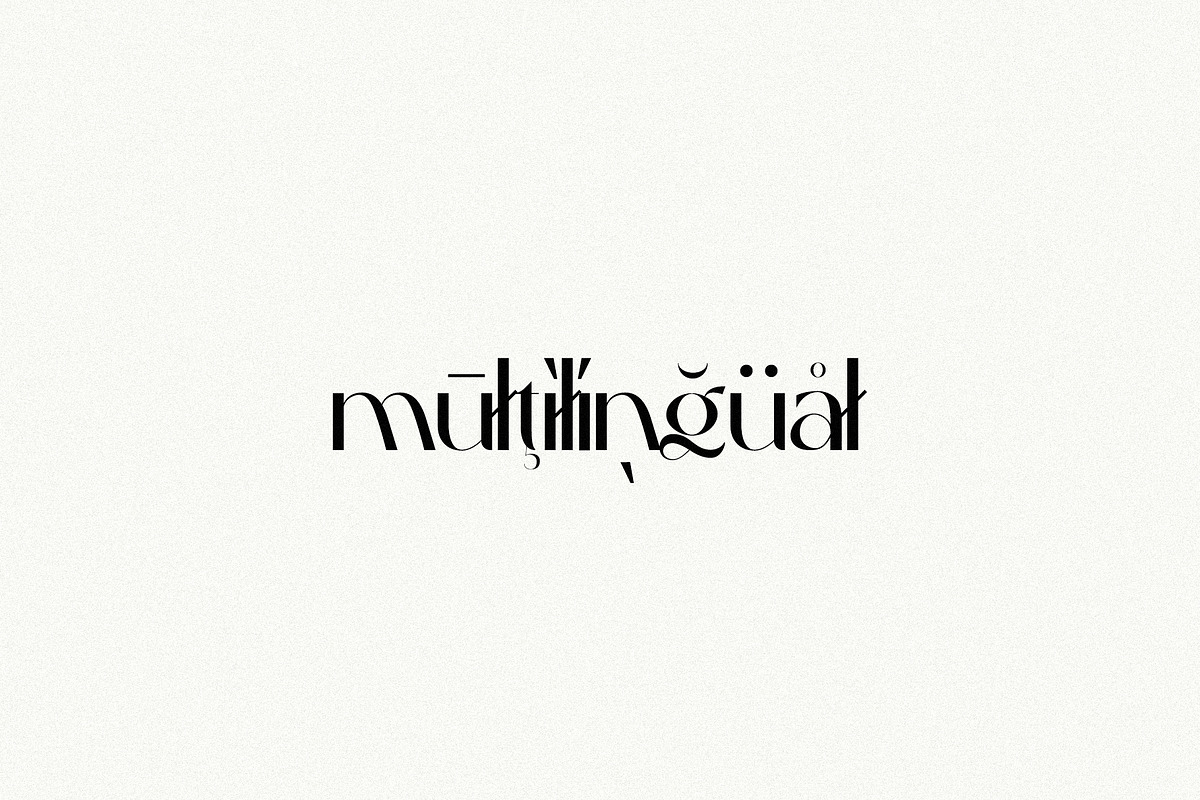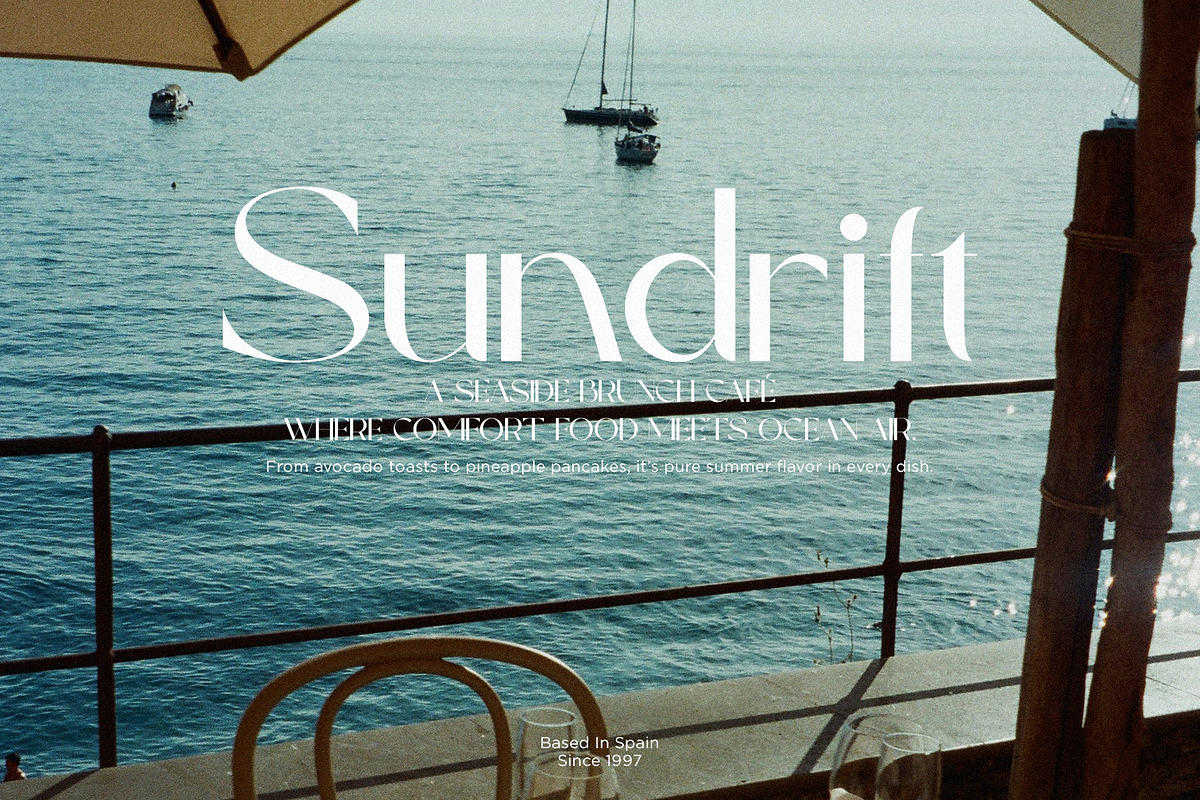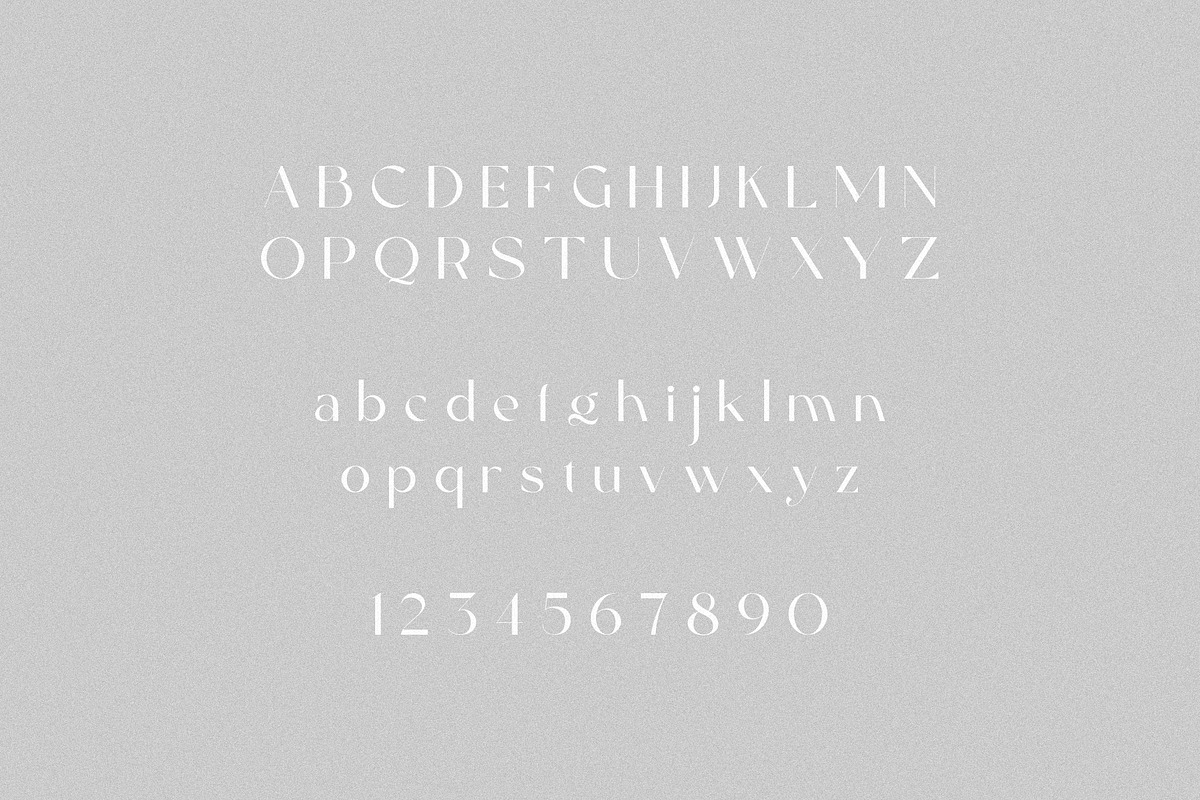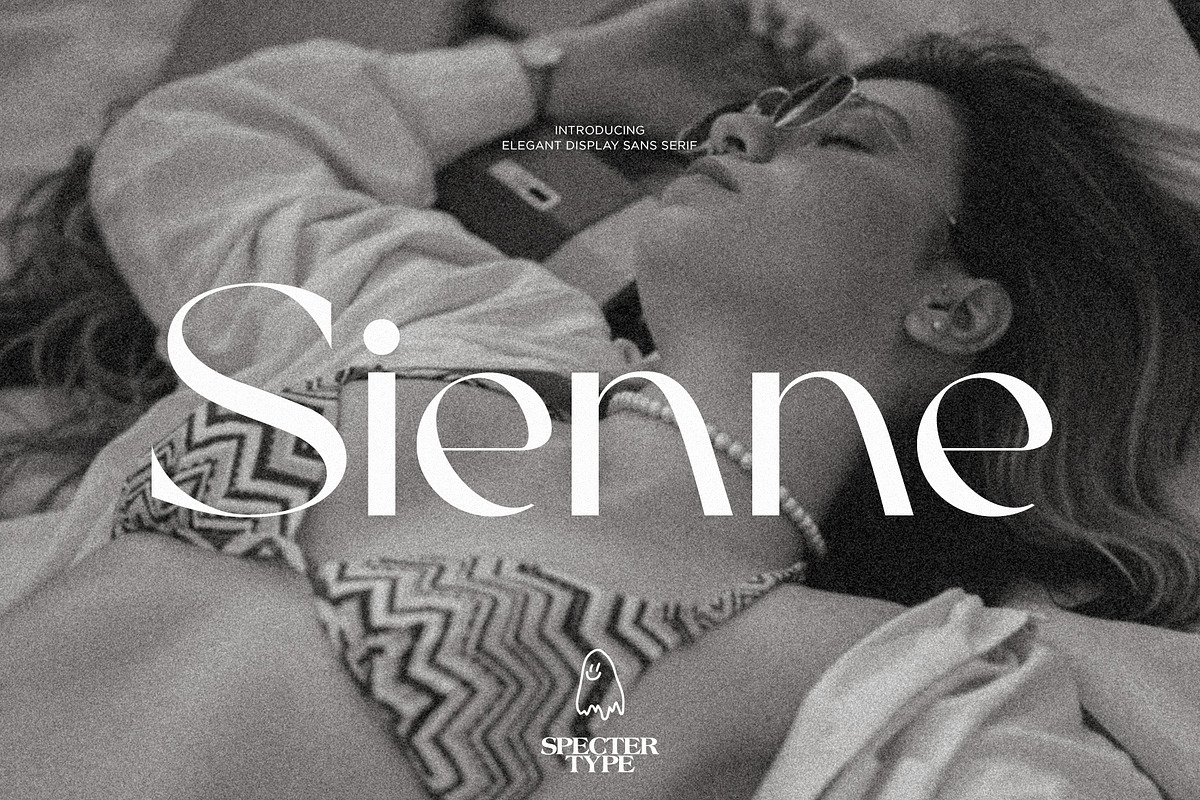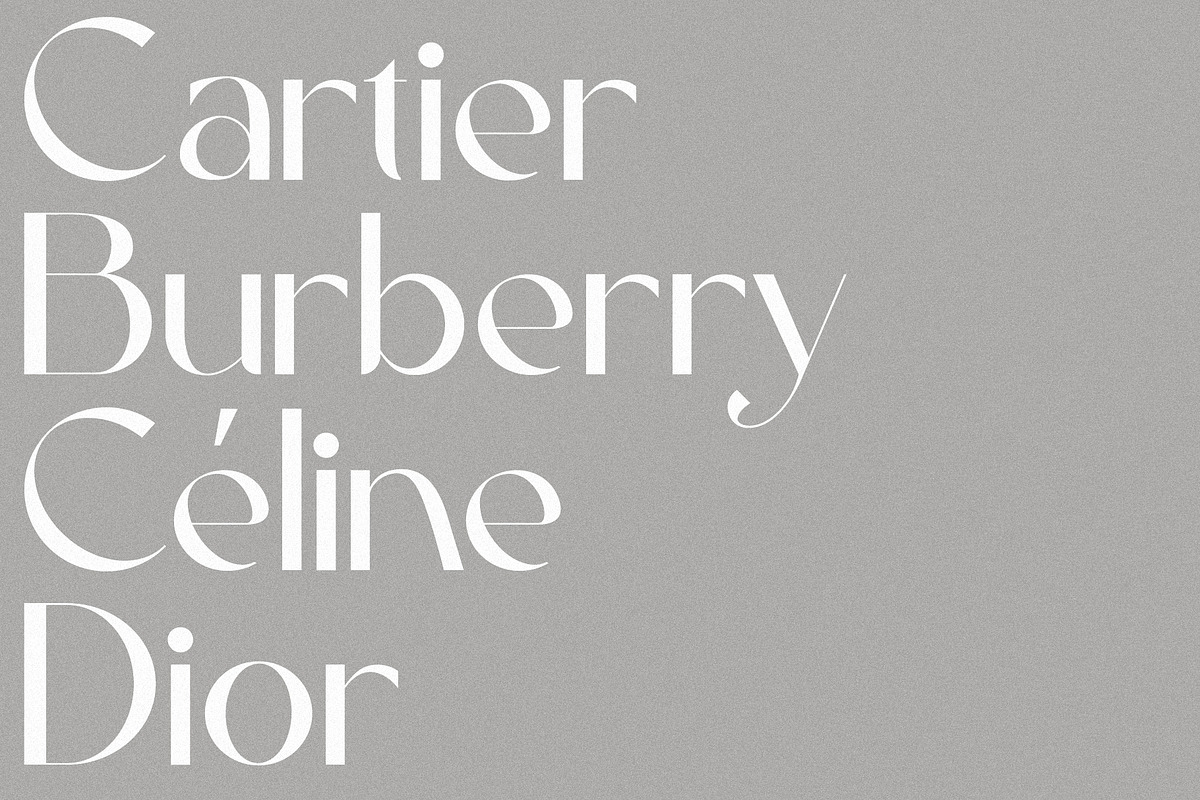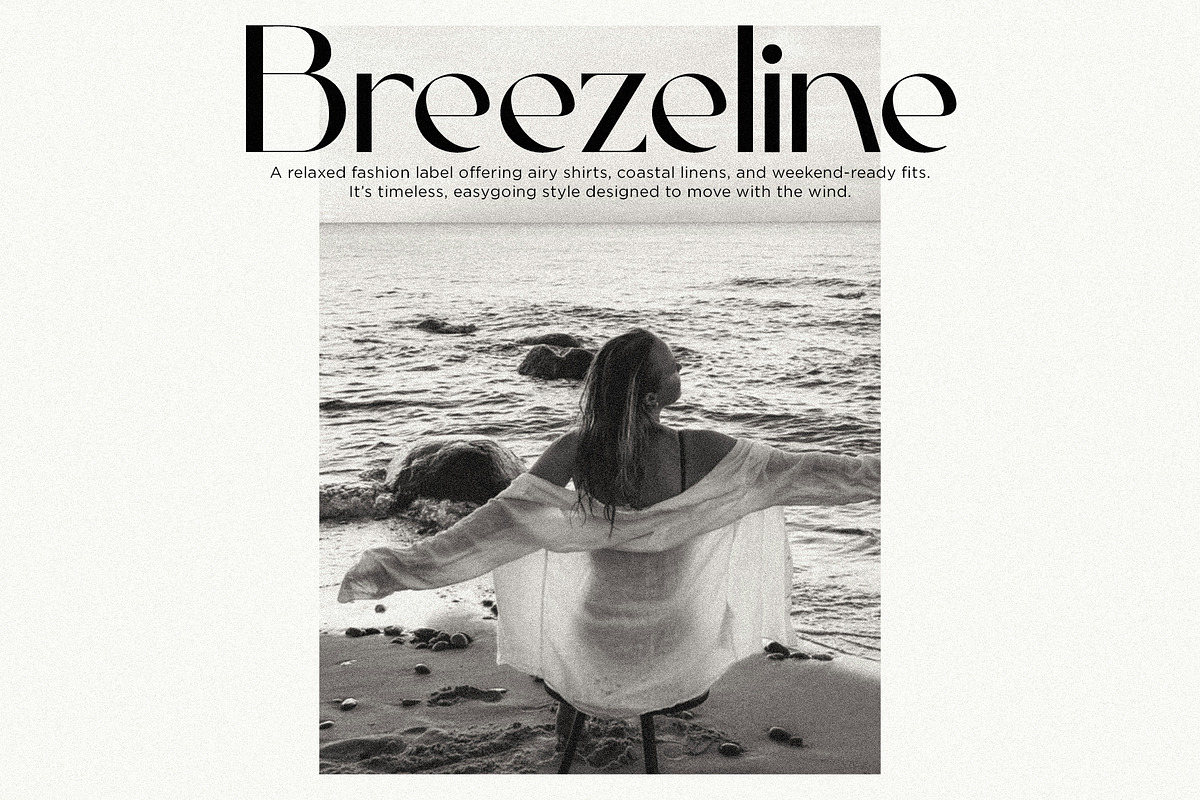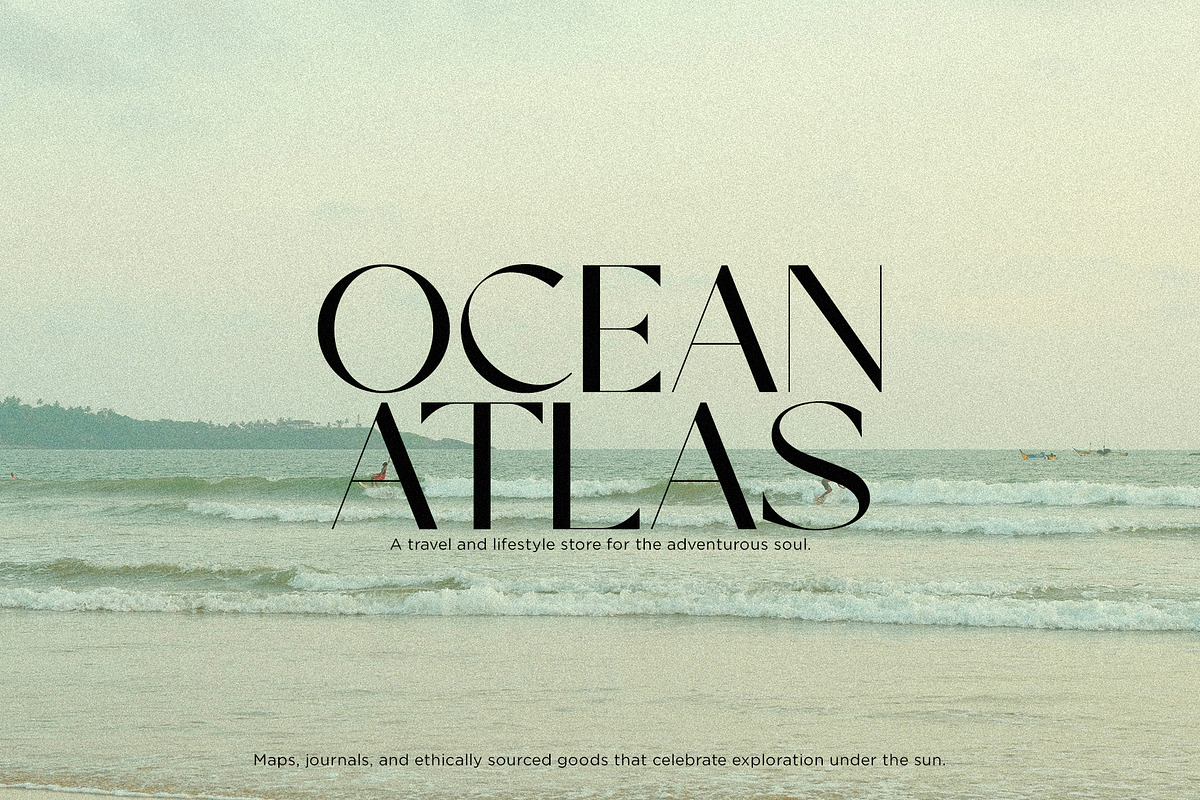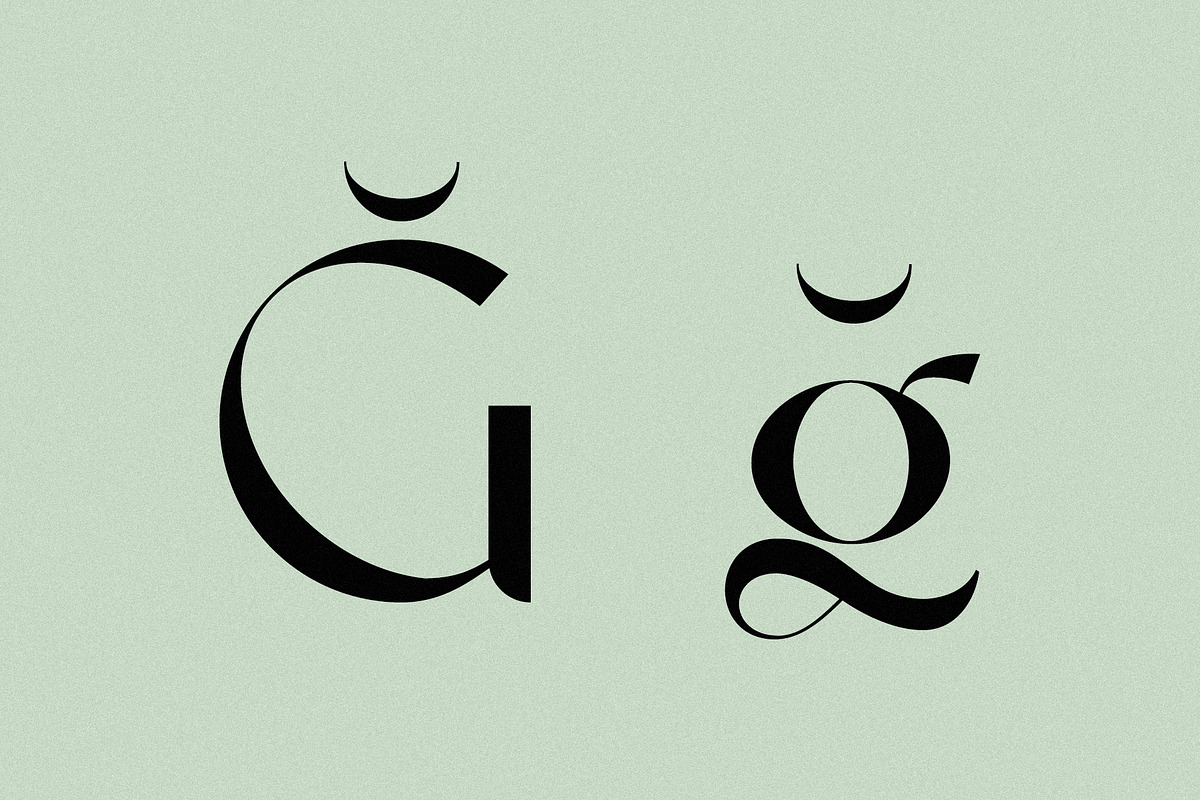
Sienne - Elegant Display Sans Serif
Sienne is an elegant and sophisticated sans serif font designed for those who seek modern aesthetics with timeless appeal. Its clean lines, refined curves, and bold proportions make it ideal for a wide range of design applications, from high-end branding and editorial layouts to minimalist web design. With its distinctive yet highly readable style, Sienne strikes the perfect balance between luxury and simplicity, making it an essential addition to any designer's toolkit. Whether you're creating a high-impact logo, a stylish headline, or a premium product label, Sienne exudes confidence and class.
Sienne features uppercase & lowercase letters, numbers & symbols, multilingual support, over 250+ glyphs.